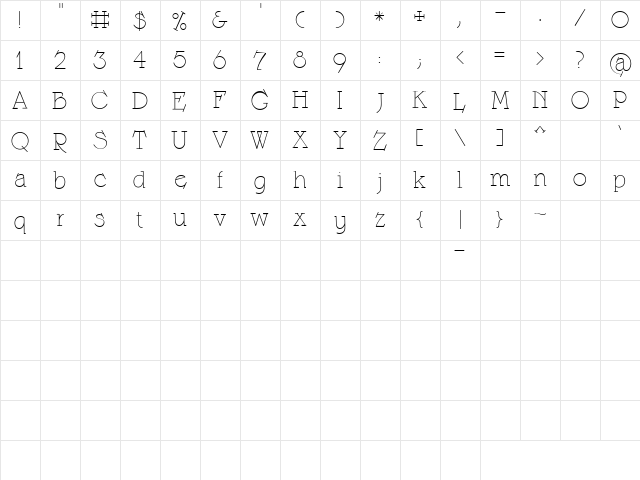
CK Flip Serif Regular
Design Context for CK Flip Serif Typeface
CK Flip Serif brings classic typographic sensibility to the table — its serifs and measured letterforms reflect centuries of print heritage.
Pro Tip: Set CK Flip Serif with slightly loose tracking in headlines to let each letterform's detail read clearly at display sizes.